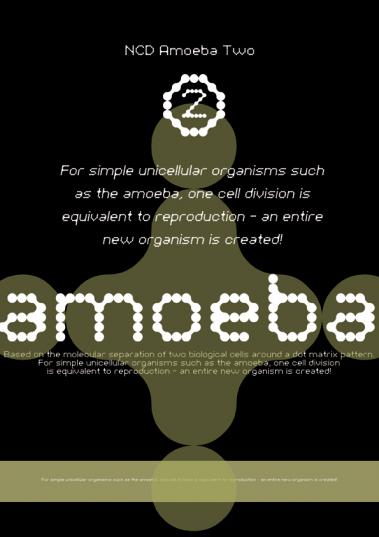
Based on NCD Amoeba, but using a quarter less grid space. This is also a slightly wider version. There are also more combinations of nearby dots.
NCD Ameoba is based on the molecular separation of two biological cells, around a dot matrix format.
For simple unicellular organisms such as the amoeba, one cell division is equivalent to reproduction - an entire new organism is created!